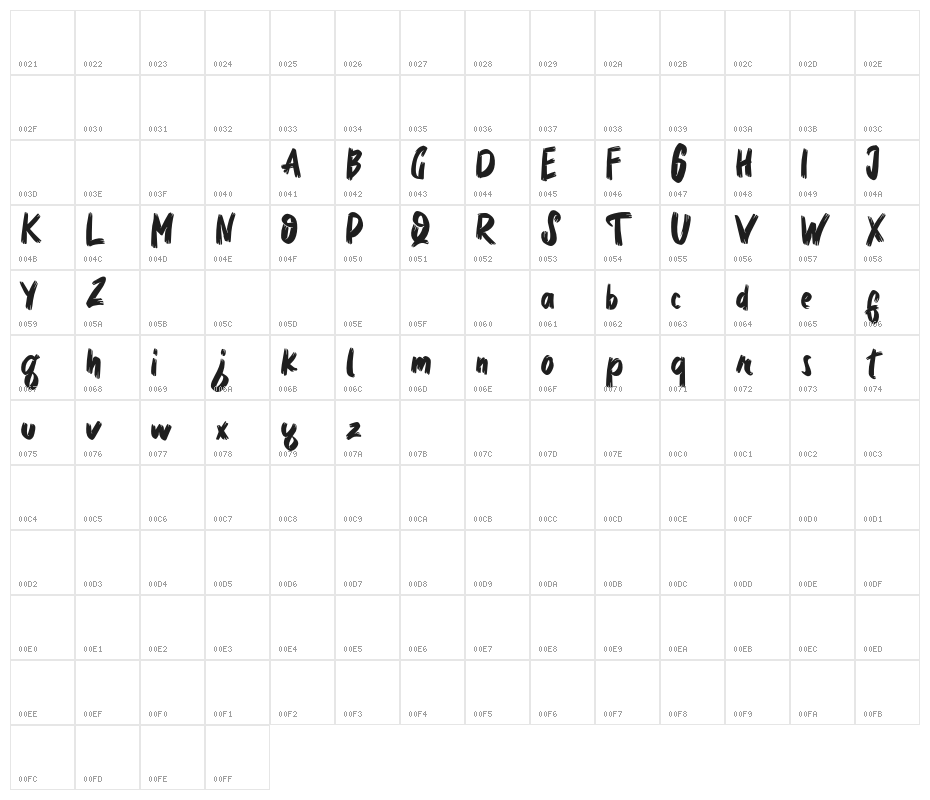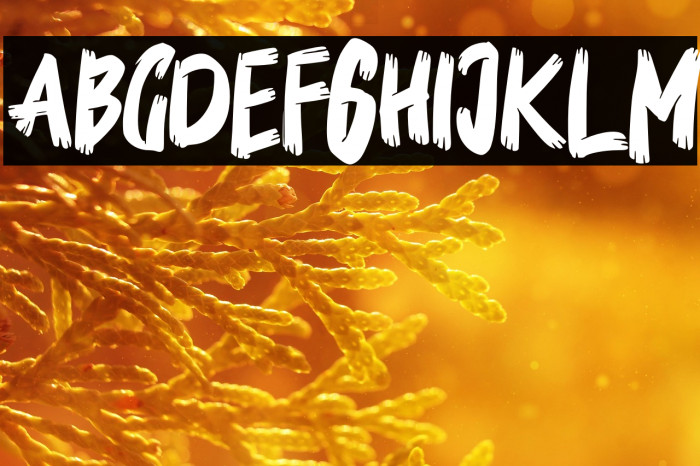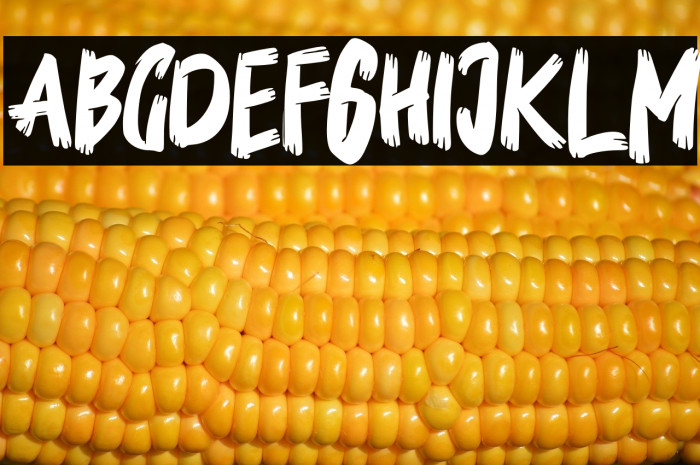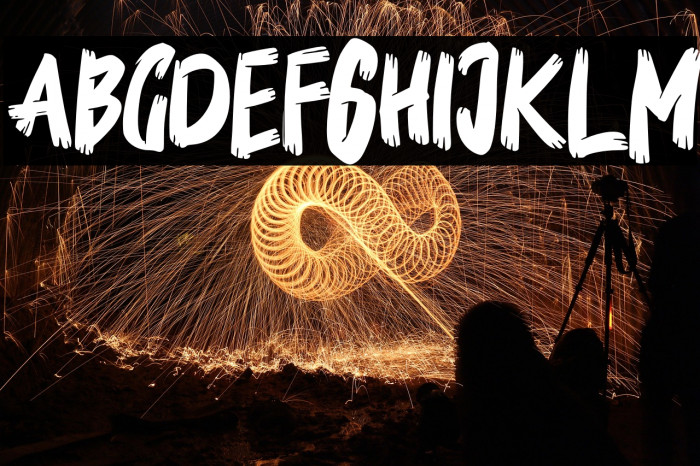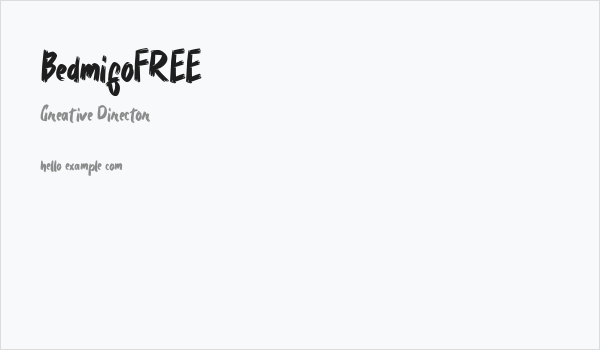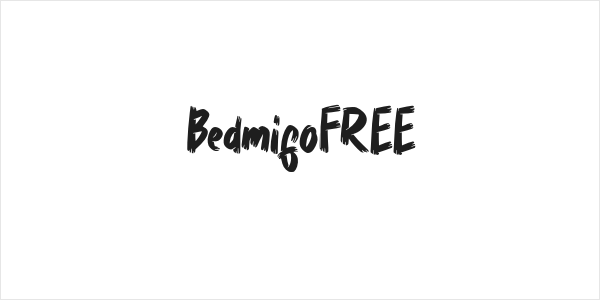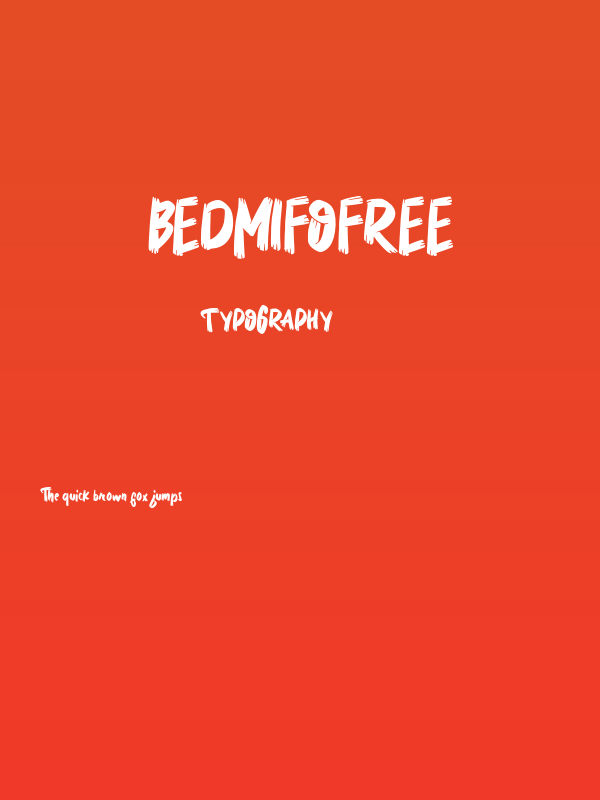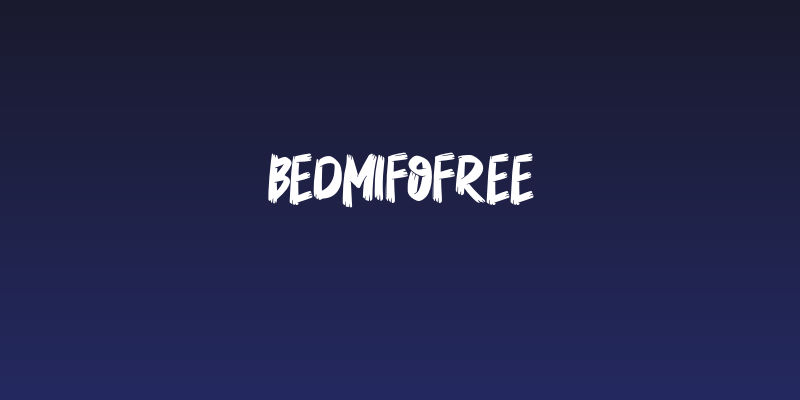
BedmifoFREE Font
BedmifoFREE Description
This font features a bold and expressive brush style, characterized by its dynamic and energetic strokes. The letters have a hand-painted appearance, with varying thicknesses that add a sense of movement and creativity. The uppercase and lowercase letters maintain a consistent style, with some letters having unique, artistic flairs that enhance their individuality. The font's overall aesthetic is both modern and artistic, making it suitable for projects that require a strong visual impact. The characters are slightly condensed, contributing to a compact and cohesive look.
| Proposed Projects | Ideal for posters, branding, artistic projects, and any design requiring a bold, creative touch. |